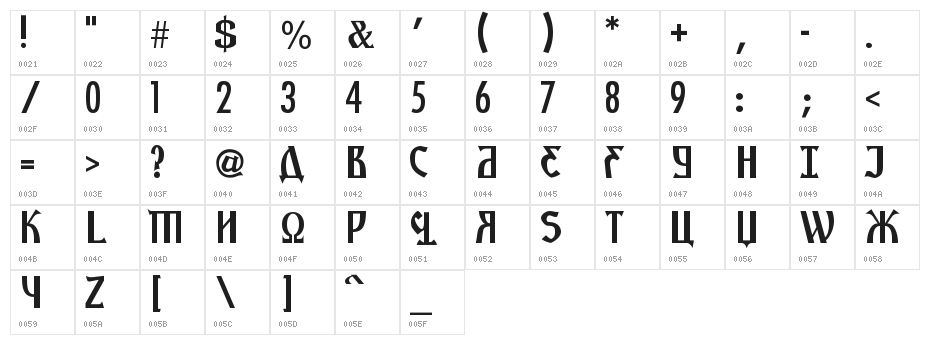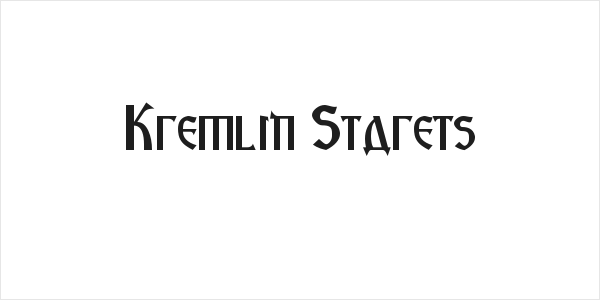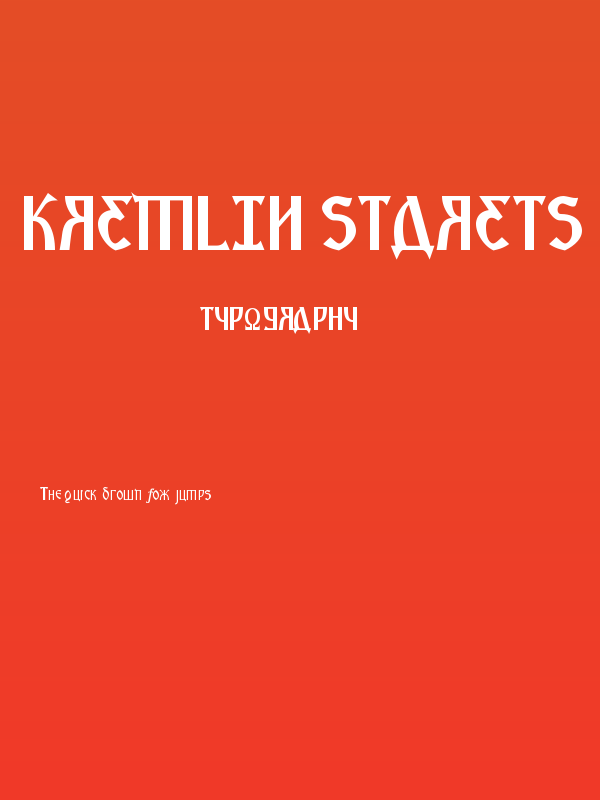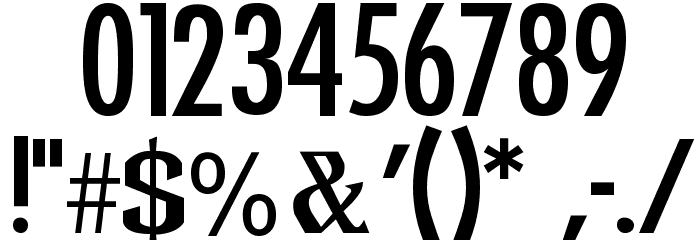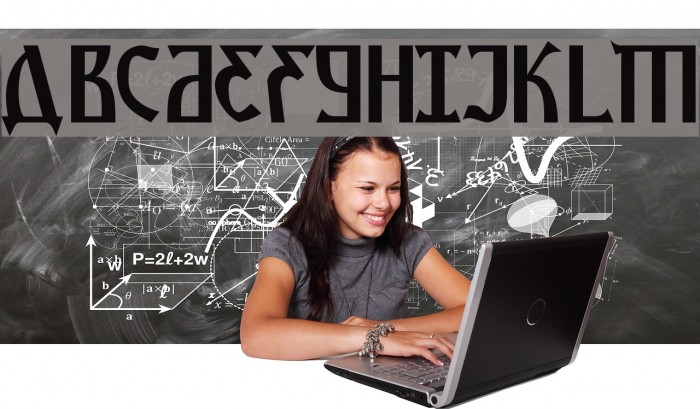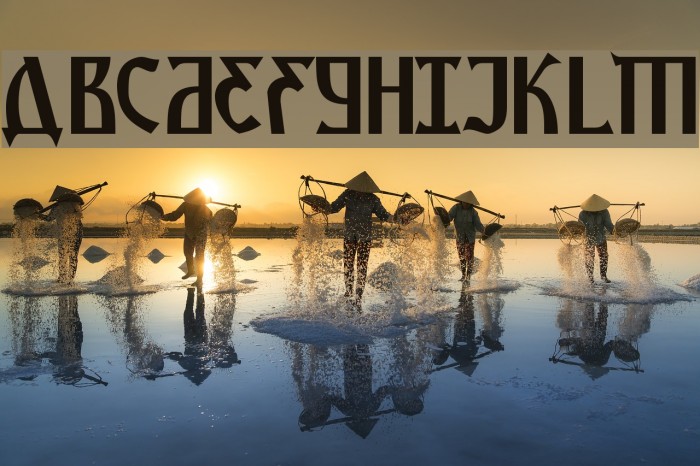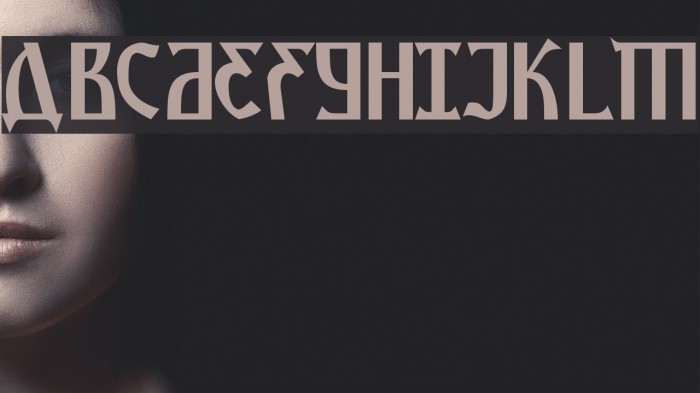
Kremlin Starets Font
Kremlin Starets Description
This font features a bold and striking design with a strong presence, characterized by its sharp, angular serifs and distinct geometric shapes. The uppercase letters exhibit a unique blend of traditional and modern elements, with a slight nod to historical scripts. The lowercase letters maintain a consistent style, offering a cohesive look across different text sizes. Numbers are clear and easily distinguishable, while the special characters complement the overall aesthetic, making it suitable for impactful and attention-grabbing designs.